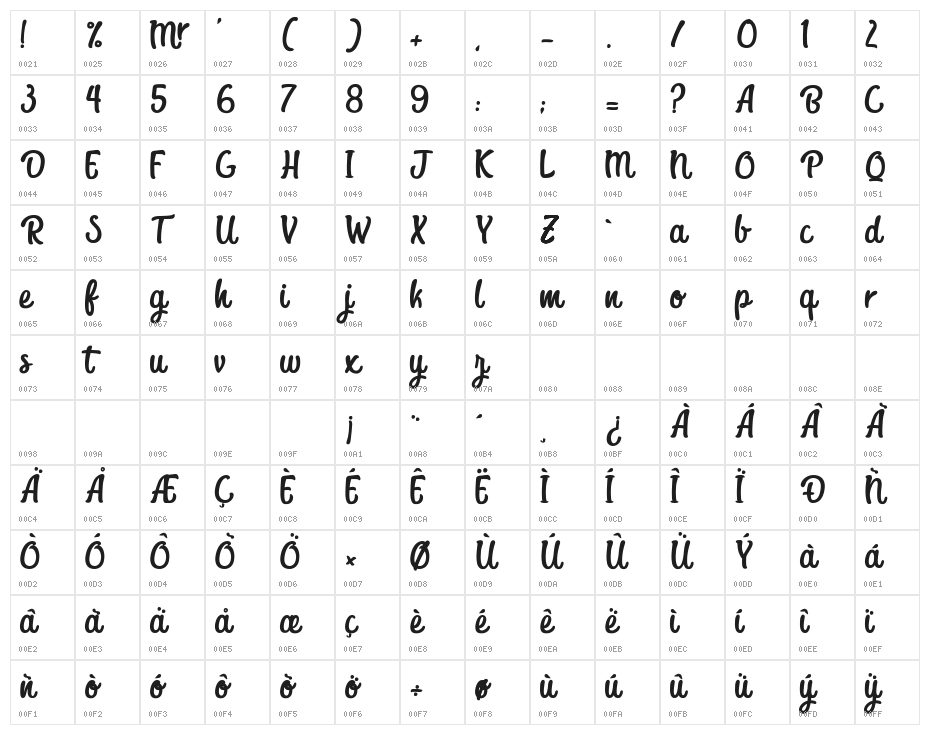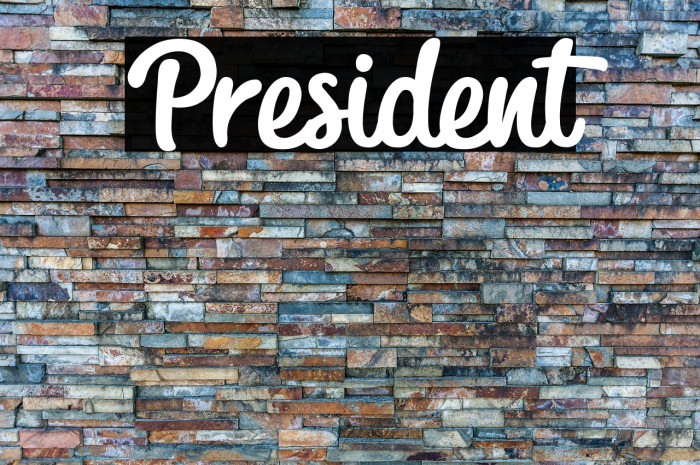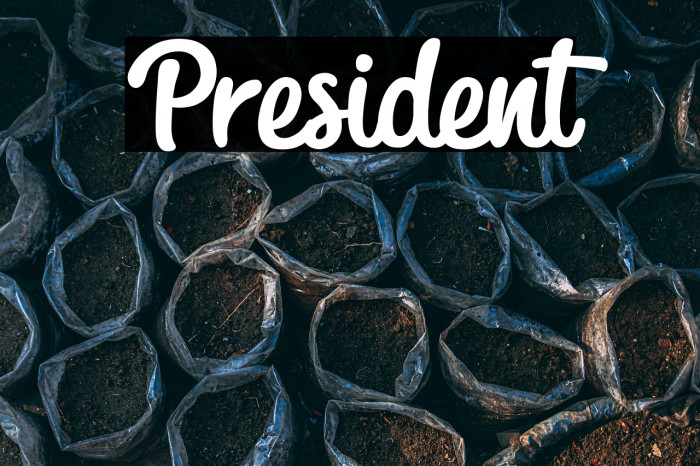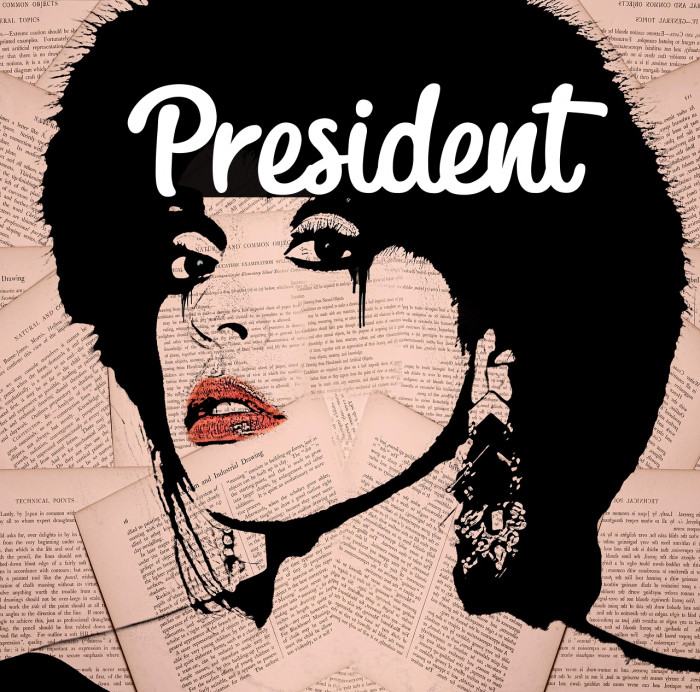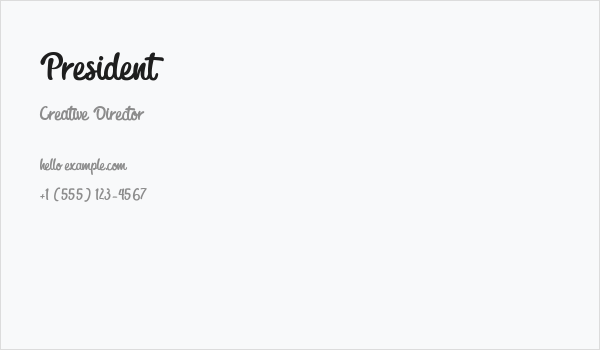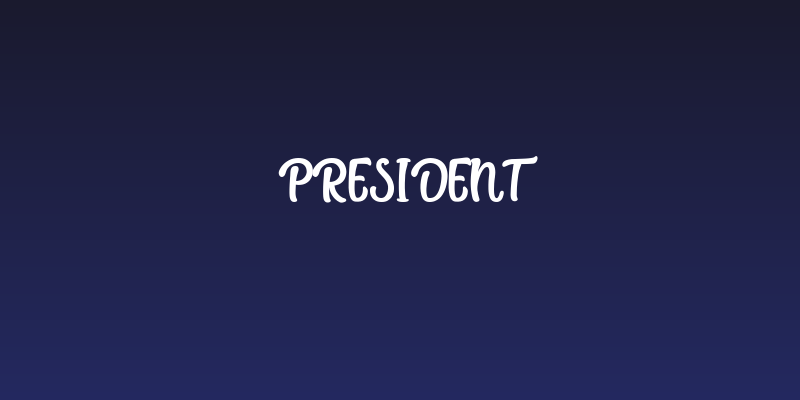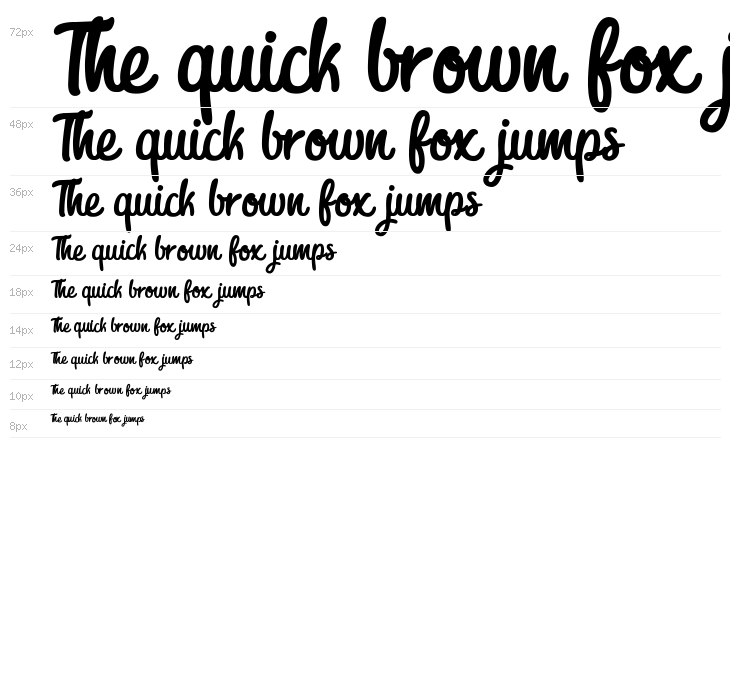
President Font
President Description
This font features a bold, flowing script style with a handwritten appearance. The uppercase letters are characterized by smooth, rounded curves and a consistent stroke width, giving them a harmonious and elegant look. The lowercase letters maintain the same fluidity, with some letters featuring distinctive loops and swirls that add a playful touch. The numerals are clear and legible, matching the overall style of the alphabet. Special characters are creatively integrated, maintaining the font's cohesive aesthetic. This font is ideal for projects that require a personal, artistic touch, such as invitations, greeting cards, or branding materials.